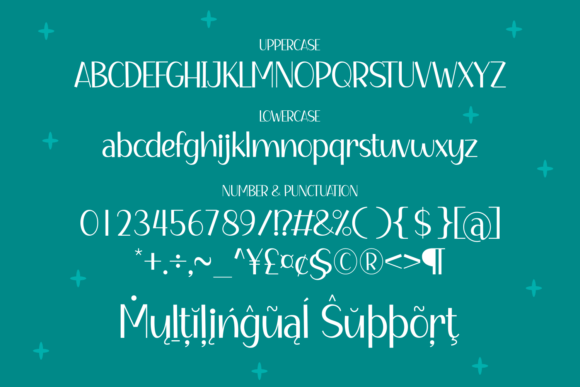
The Damine Font: A Friendly and Lovely Addition to Your Design Projects
An Honest Review of Damine Font
The Damine font is a handwritten font designed in a friendly and lovely style, making it an excellent addition to your font library. Here’s what I love about it:
- ✨ Friendly and approachable feel, perfect for designs that require a personal touch
- 💕 Beautifully crafted with a unique character that sets it apart from other handwritten fonts
- 🎉 Versatile and can be used for a wide range of design projects, from wedding invitations to social media posts
While Damine is an excellent font, it’s not without its quirks:
- 🤔 Some users might find the font a bit too casual for formal designs
- ⚠️ Limited availability of stylistic alternates, which might limit its use in certain design projects
The Story Behind Damine Font
The Damine font was designed with the intention of creating a friendly and approachable font that could be used in a variety of design projects. The designer aimed to craft a font that would evoke a sense of warmth and playfulness, making it perfect for designs that require a personal touch.
| Font Name | Damine Font |
| Author | Rydmaker (7NTypes) |
| What type of designs is Damine best suited for? | Damine is versatile and can be used for a wide range of design projects, including wedding invitations, party decorations, social media posts, and more. |